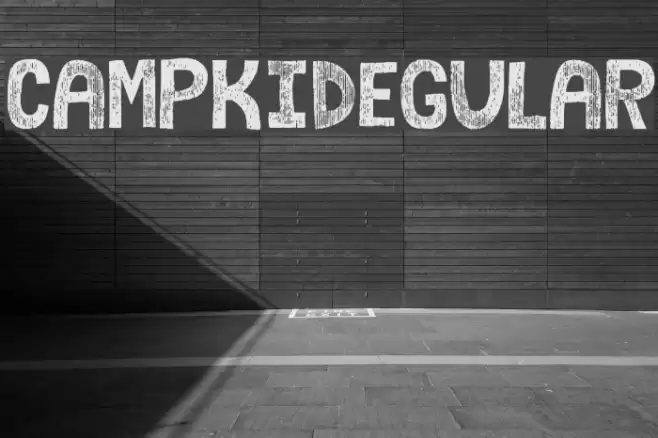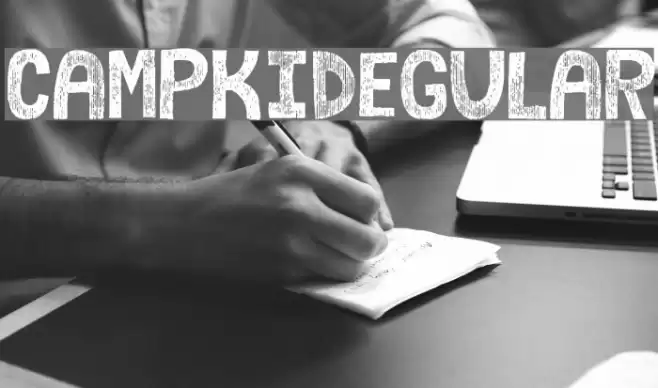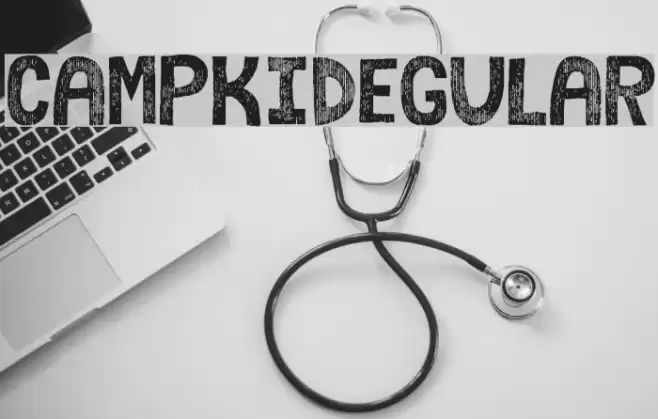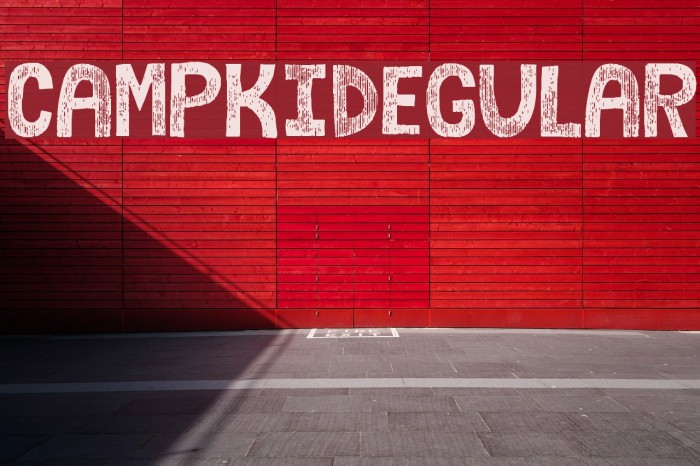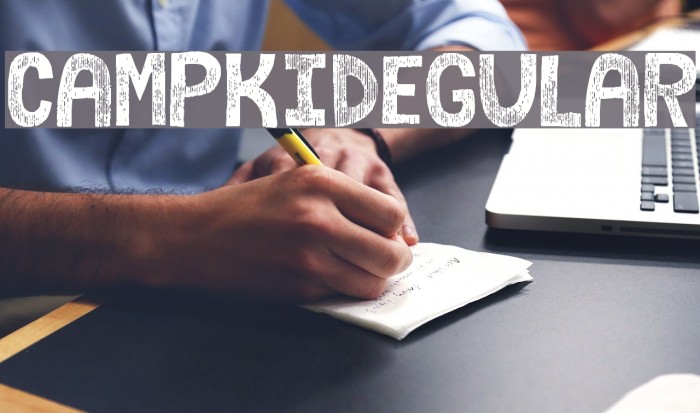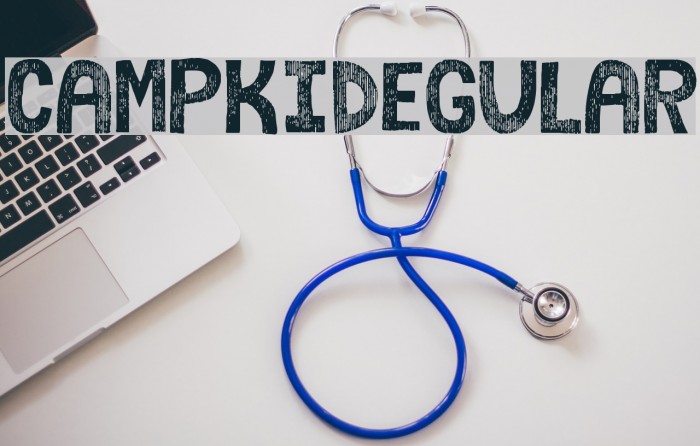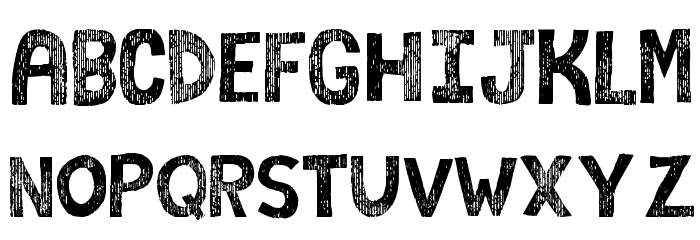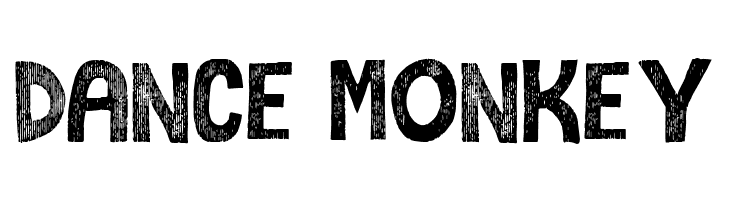
campkid-Regular Font
campkid-Regular Description
This font features a rugged, distressed style that gives it a worn and textured appearance. The uppercase letters are bold and have a hand-crafted feel, with uneven edges and a slightly rough texture that suggests a vintage or rustic aesthetic. The font's design is reminiscent of woodblock printing or stenciling, making it ideal for projects that require a touch of authenticity and character. The spacing between characters is consistent, allowing for easy readability despite the textured design. This font is particularly suited for creative projects that aim to convey a sense of adventure or nostalgia.
A rugged, distressed font with a vintage, hand-crafted style from Uncategorized fonts.
- Proposed Projects: Ideal for posters, branding, packaging, and outdoor-themed designs.
- Overall Style: Vintage